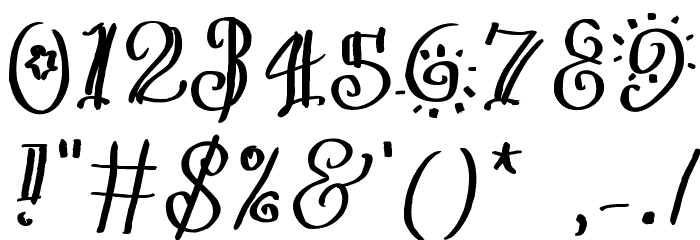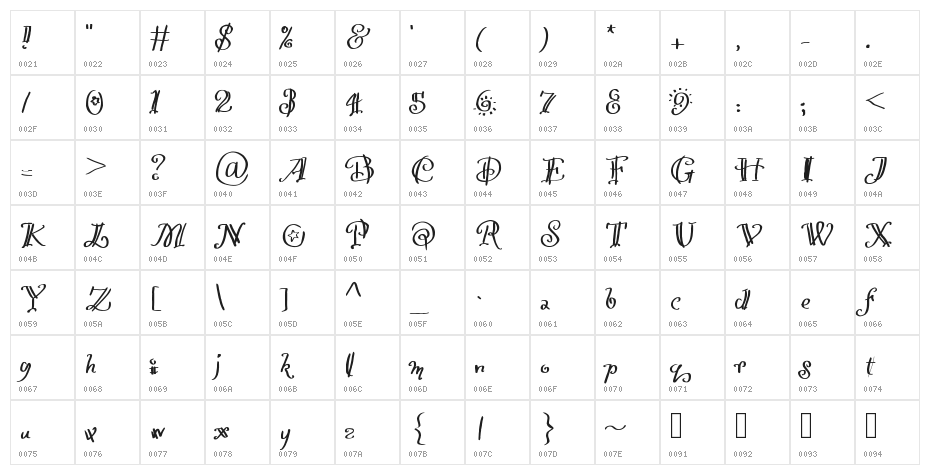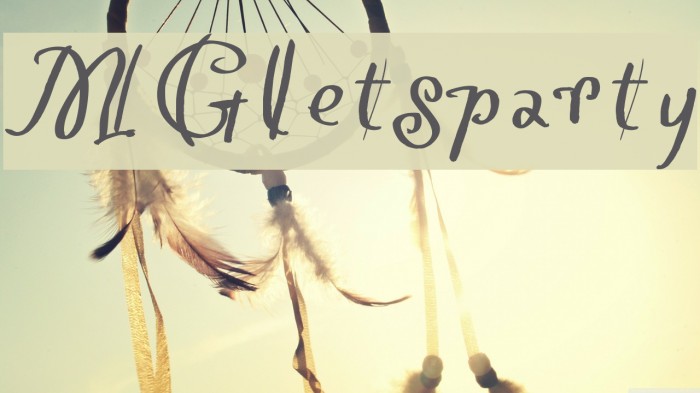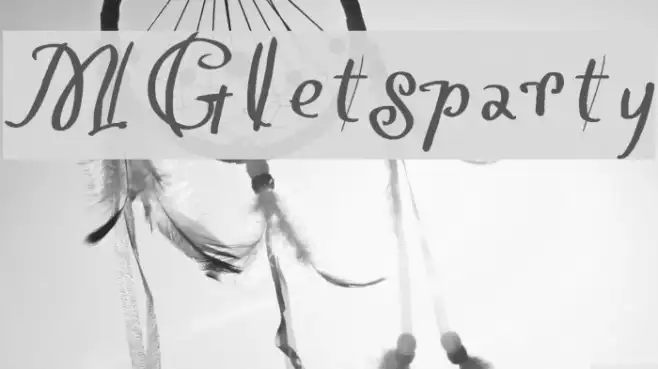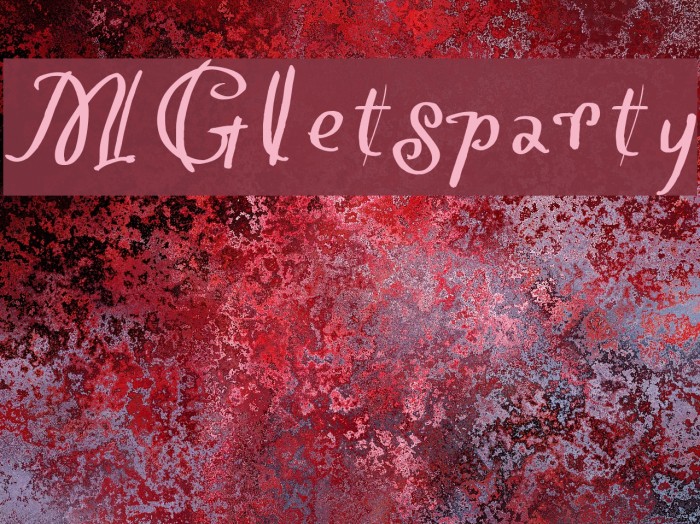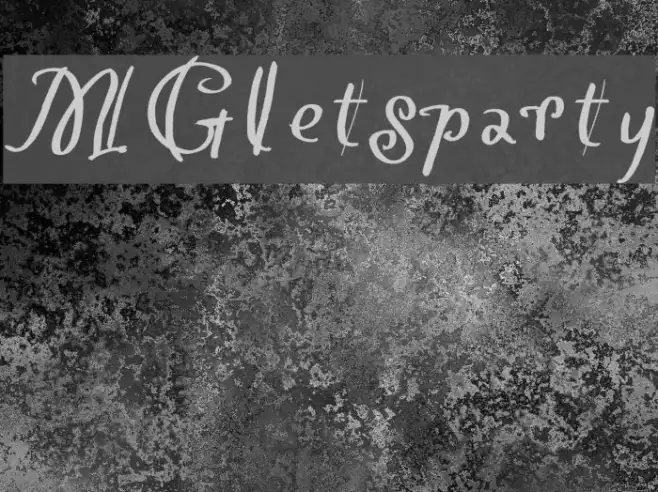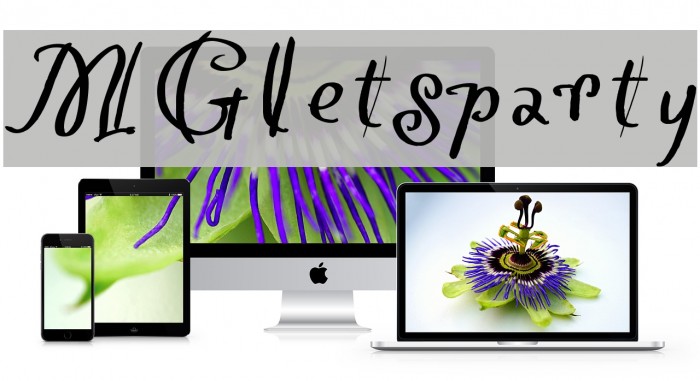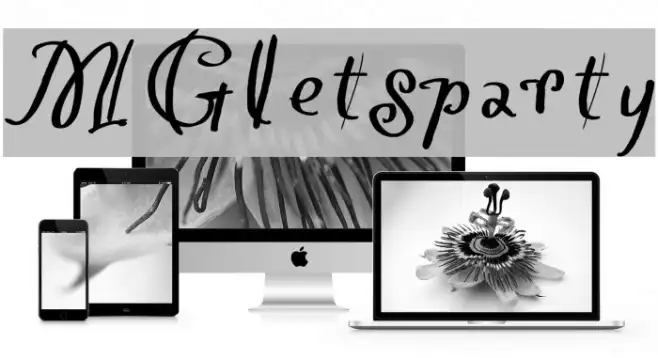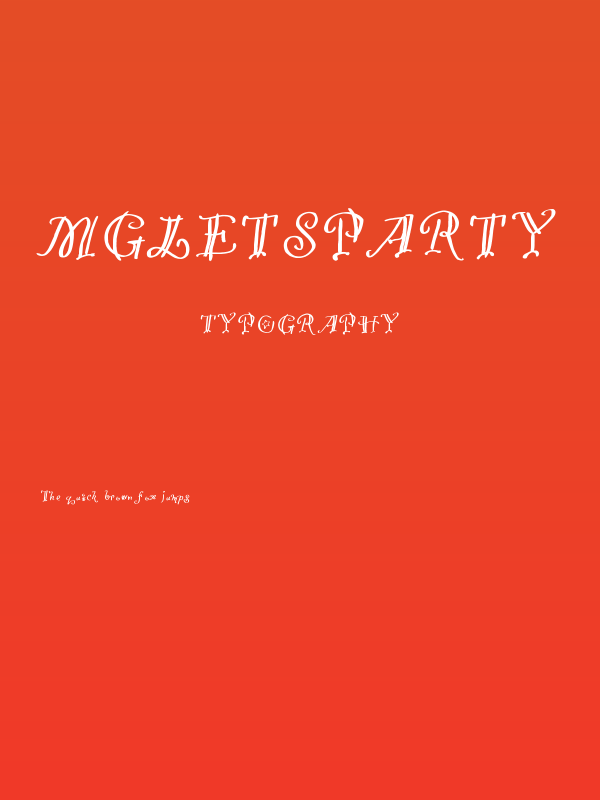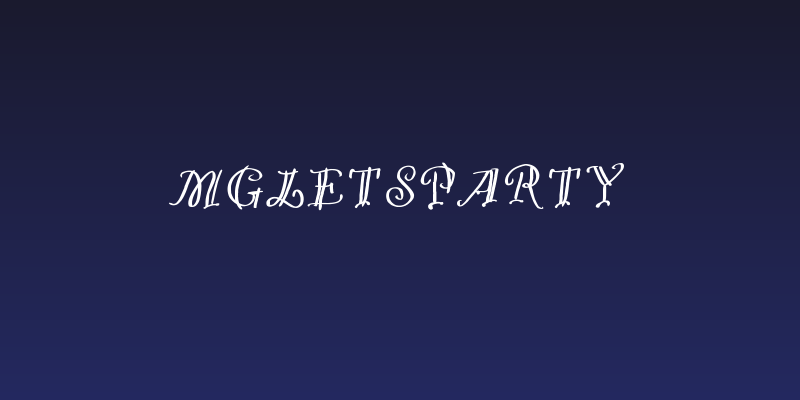
MGletsparty Font
MGletsparty Description
This font exudes a whimsical and playful vibe, characterized by its decorative and ornate letterforms. Each character is uniquely styled with flourishes and embellishments, giving it a lively and festive appearance. The uppercase letters feature intricate details, while the lowercase letters maintain a more fluid and dynamic form. Numbers and special characters continue the theme with creative and artistic designs. The overall style is reminiscent of a party or celebration, making it ideal for projects that require a fun and energetic touch. The font's distinctiveness lies in its ability to convey joy and excitement through its elaborate and imaginative design.
| Proposed Projects | Ideal for party invitations, festive banners, children's book covers, and playful branding. |